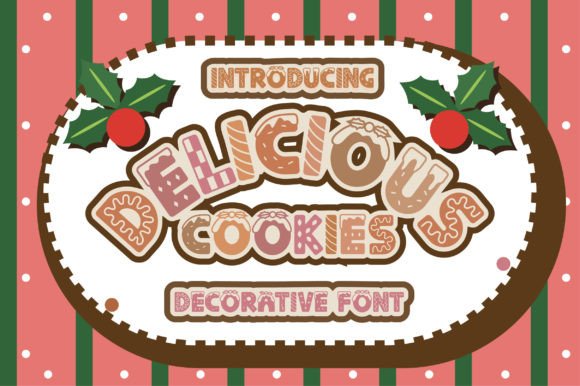
Embrace the delectable charm of Delicious Cookies Font, the ultimate decorative font family that will tantalize your senses and elevate your designs to new heights. Inspired by the warmth and cheer of the holiday season, this font exudes a playful and whimsical spirit that is sure to captivate and delight.
Unleash your creativity and let your imagination run wild as you explore the endless possibilities of Delicious Cookies Font. Whether you're crafting eye-catching event posters, heartwarming greeting cards, or captivating flyers, this font will add a touch of irresistible charm and personality to your creations. Its bold and unique style commands attention, drawing the viewer's gaze and leaving a lasting impression.
Delve into the world of Delicious Cookies Font and discover a treasure trove of artistic expression. With its playful curves and delightful details, this font captures the essence of a cookie's allure, evoking memories of sweet treats and joyful celebrations. It's the perfect font choice for those seeking a touch of whimsy and nostalgia in their designs.
Immerse yourself in the magic of Delicious Cookies Font and let your designs take center stage. This font's enchanting aura will captivate audiences and leave them craving more. Make a statement, tell a story, and create designs that speak to the heart with Delicious Cookies Font.
Indulge in the delightful world of Delicious Cookies Font today and unlock a world of creative possibilities. Experience the joy of creating designs that are both visually stunning and emotionally resonant. Let Delicious Cookies Font be your secret ingredient for captivating designs that leave a lasting impression.